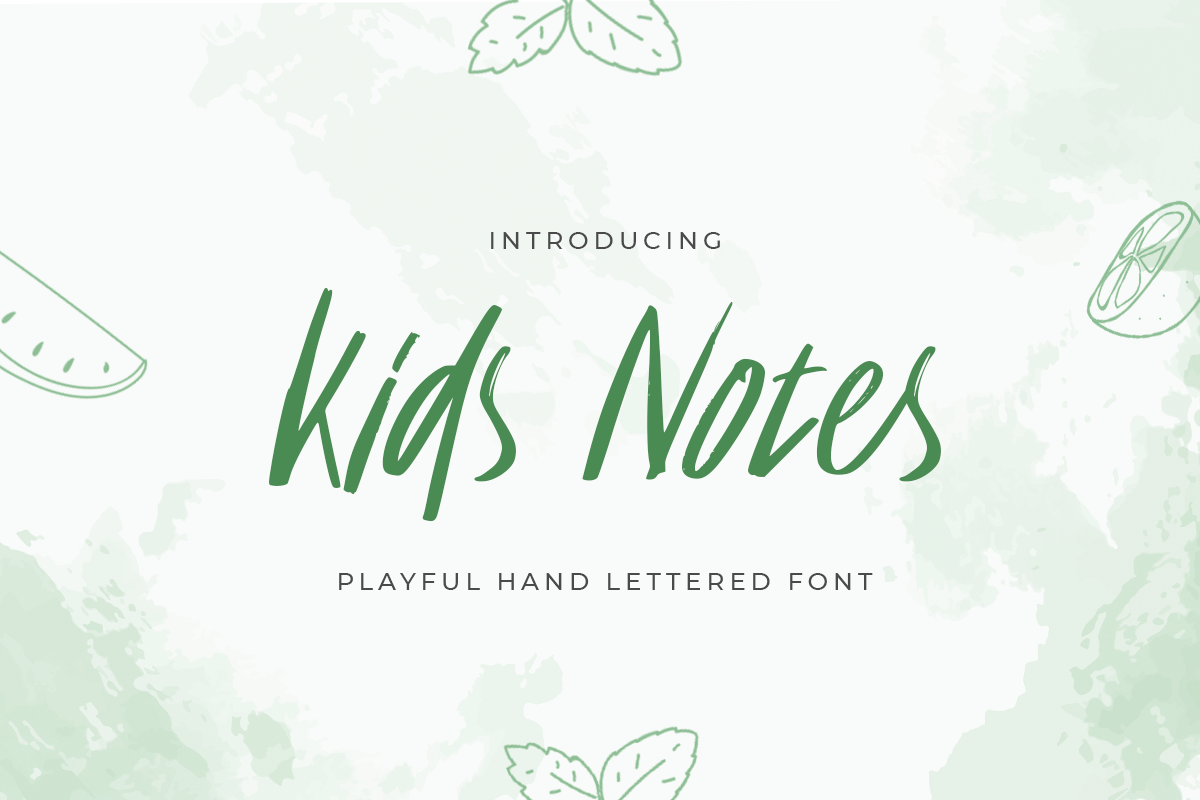
Kids Notes
-Playful Hand Letterd Font
Kids Notes
Kids Notes - a Playful Hand Letterd Font. Inspired from beauty and feminine style very good for signature, stationery, logo, typography quotes, magazine or book cover, website needs.
• Handlettered
• Script